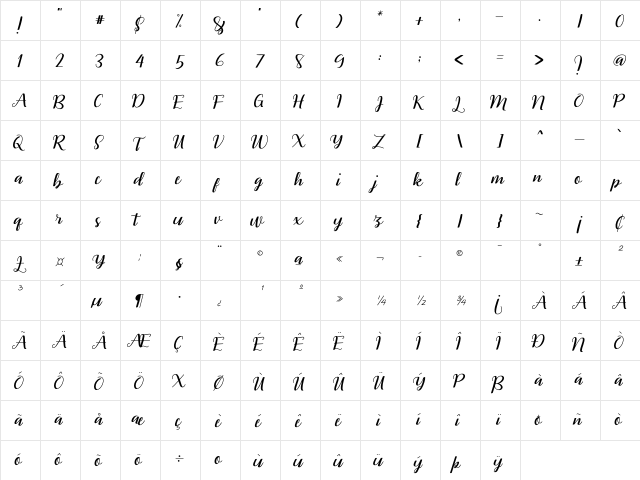
RememberYou Regular
Design Context for RememberYou Typeface
RememberYou is a composed and adaptable typeface that performs quietly and consistently across a wide range of design contexts.